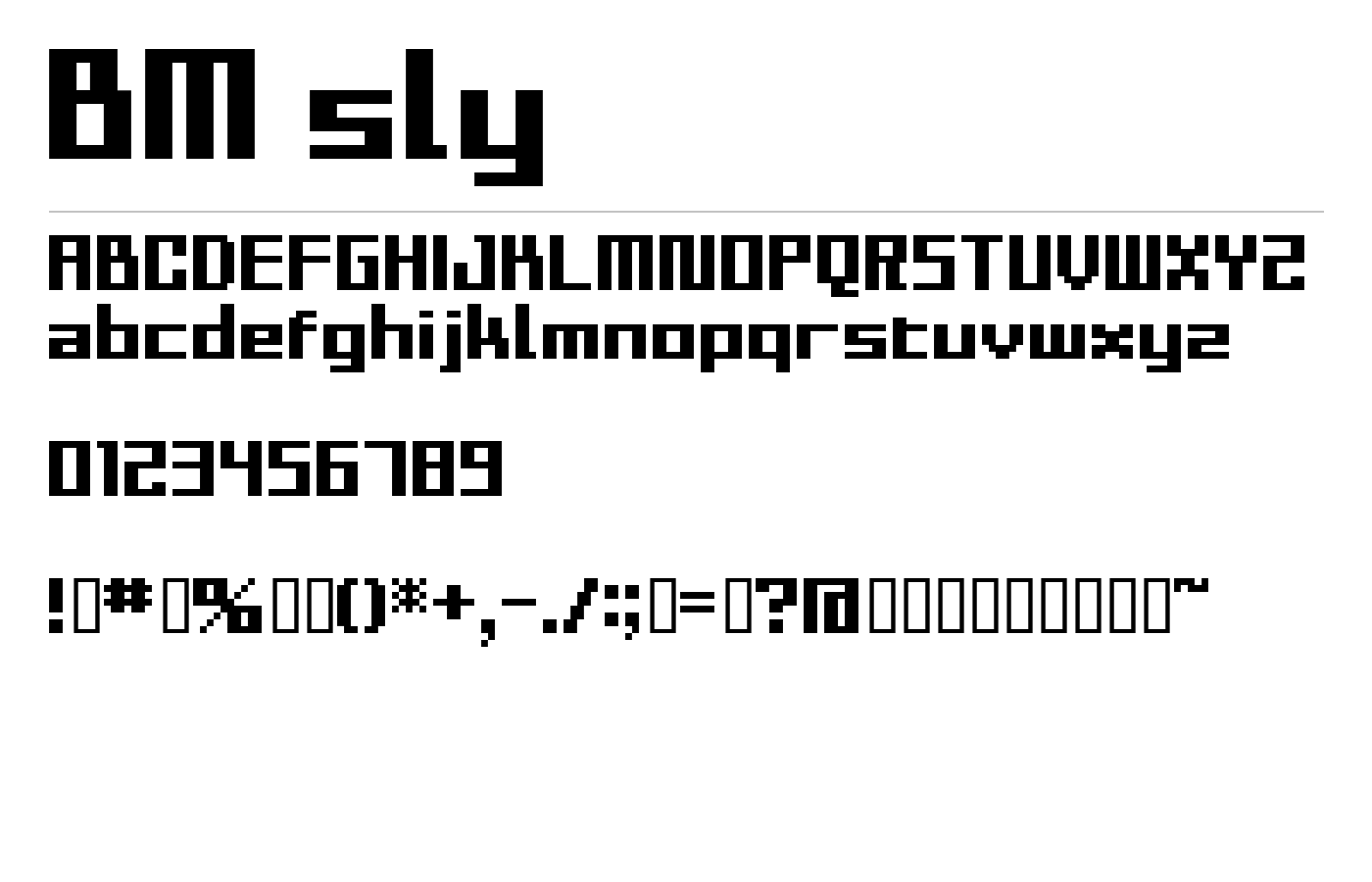
BM sly is a bold, geometric sans serif font with a strong, blocky appearance and sharp, straight edges. Its condensed width and uniform stroke weight give it a modern, digital feel, making it ideal for tech, gaming, or futuristic branding and headlines where a striking, contemporary look is desired. This font works well in display use where clarity and impact are key.
BM sly Font
About BM sly Font